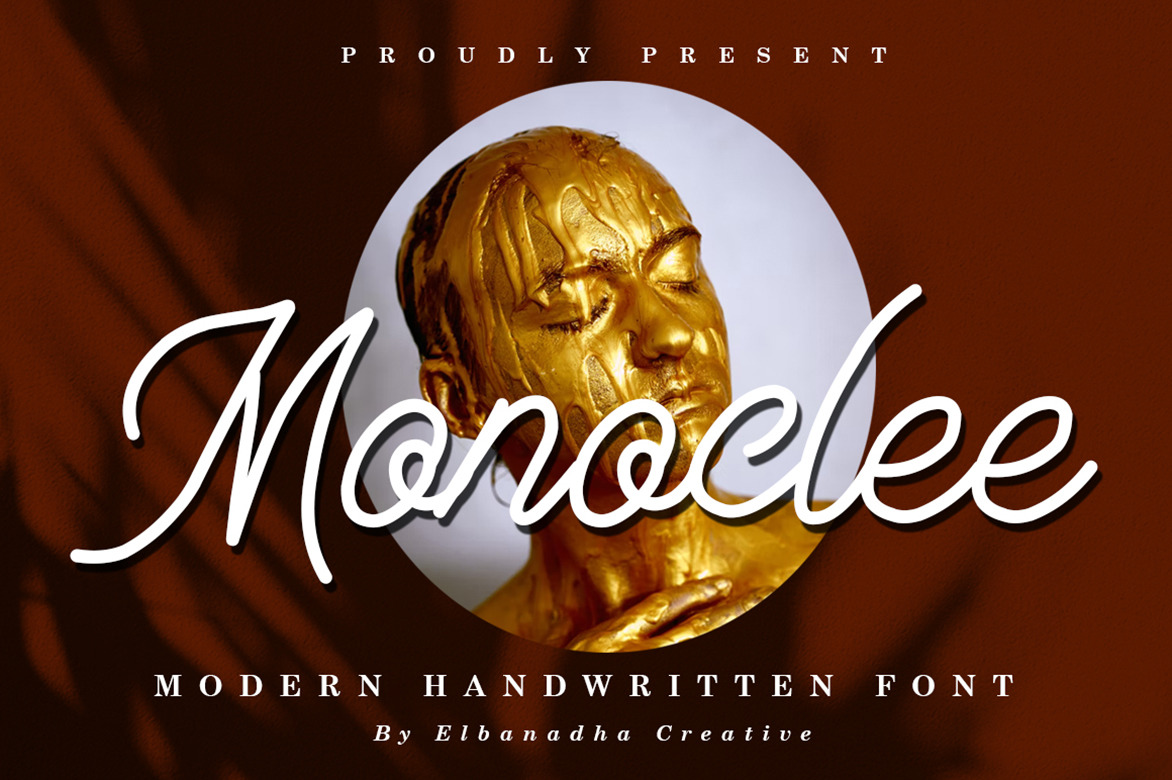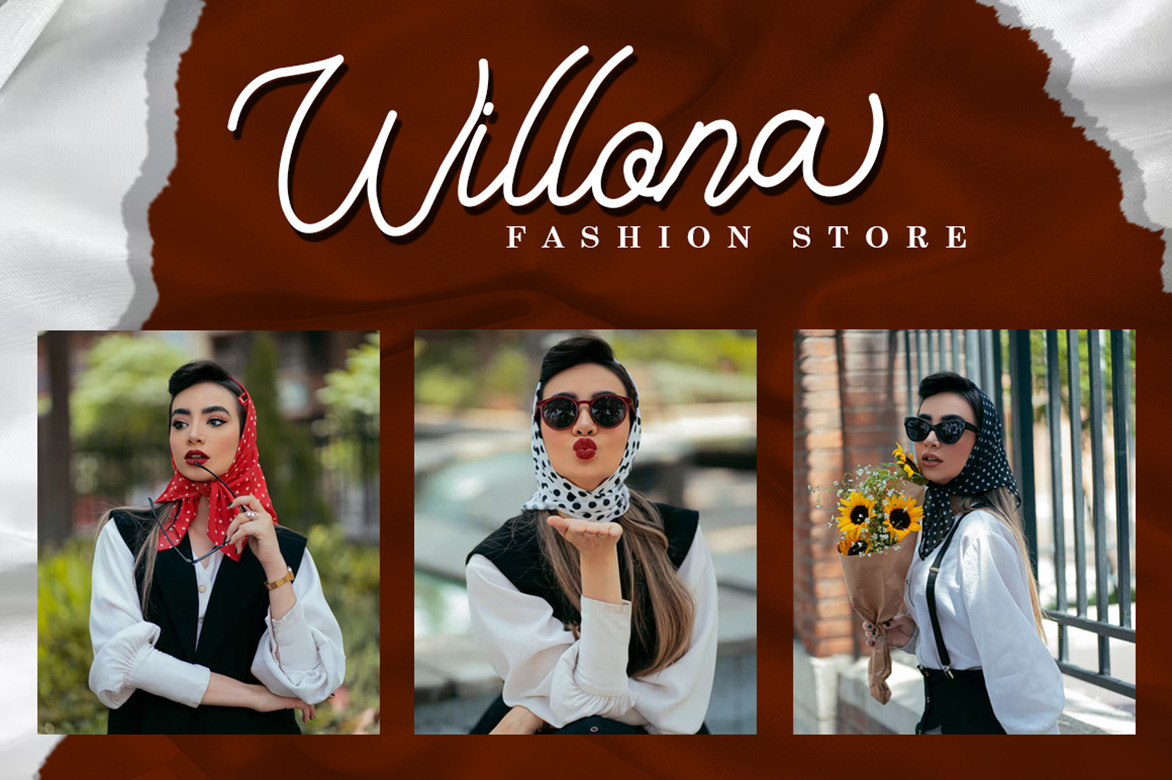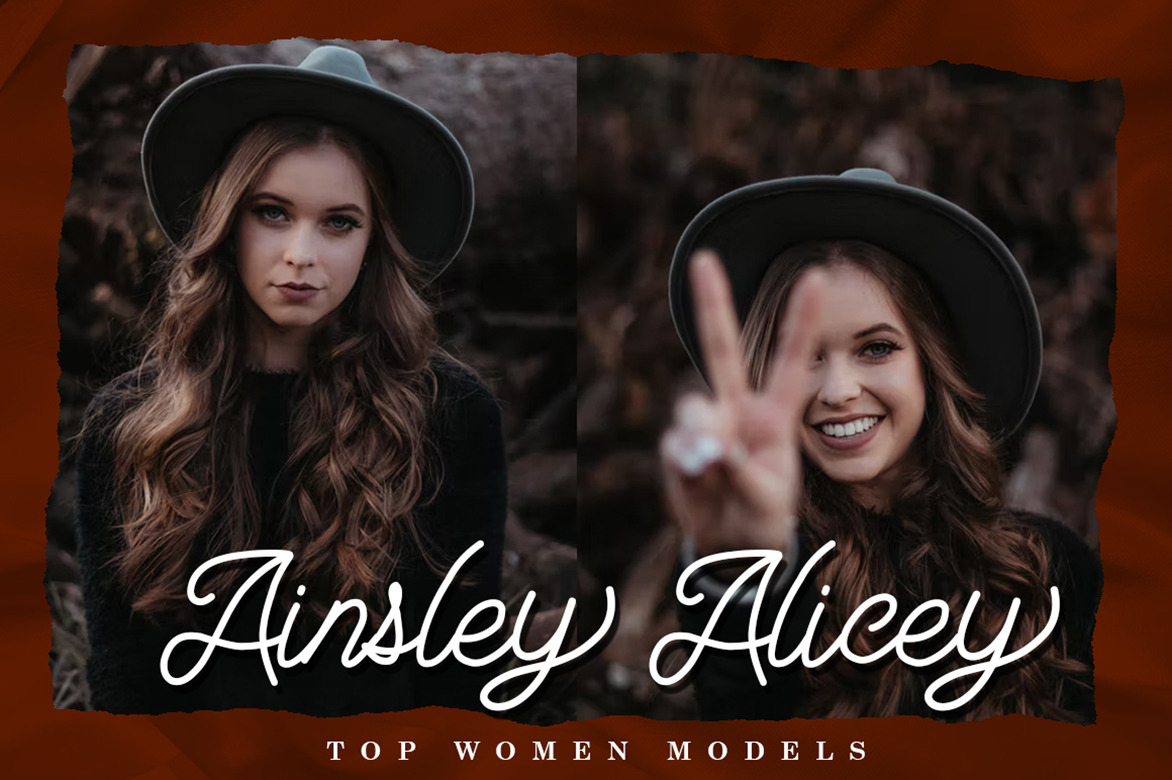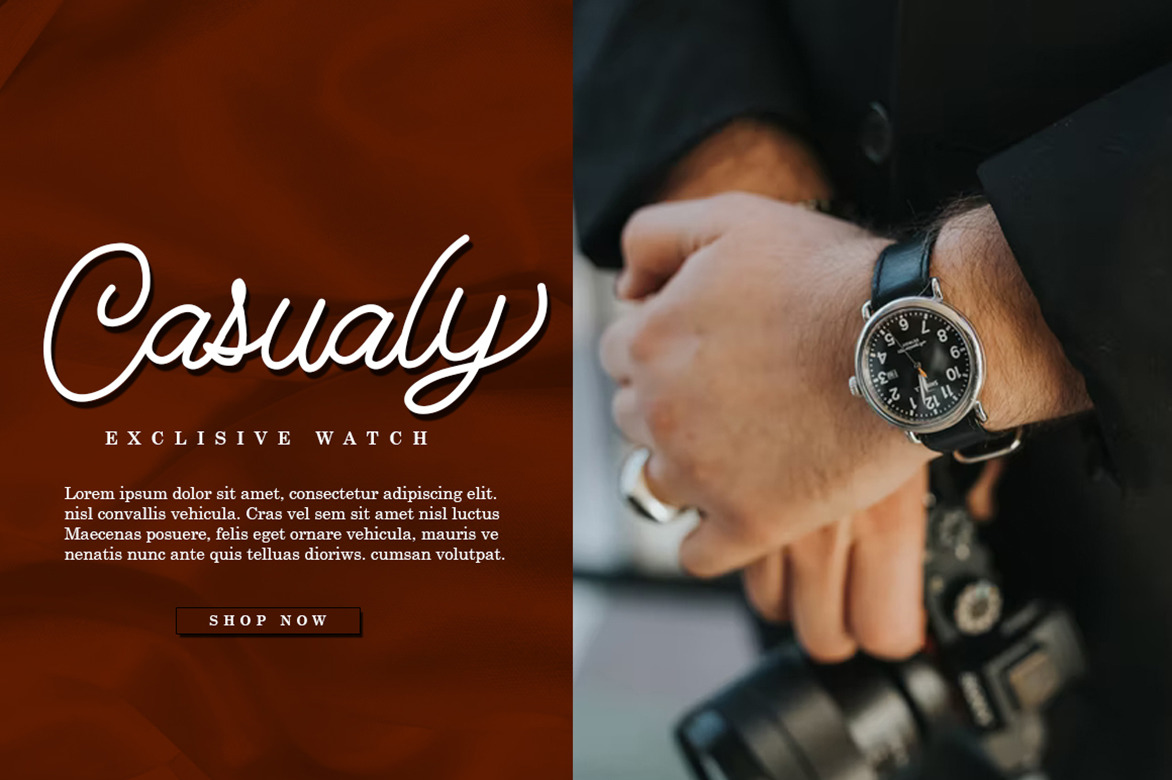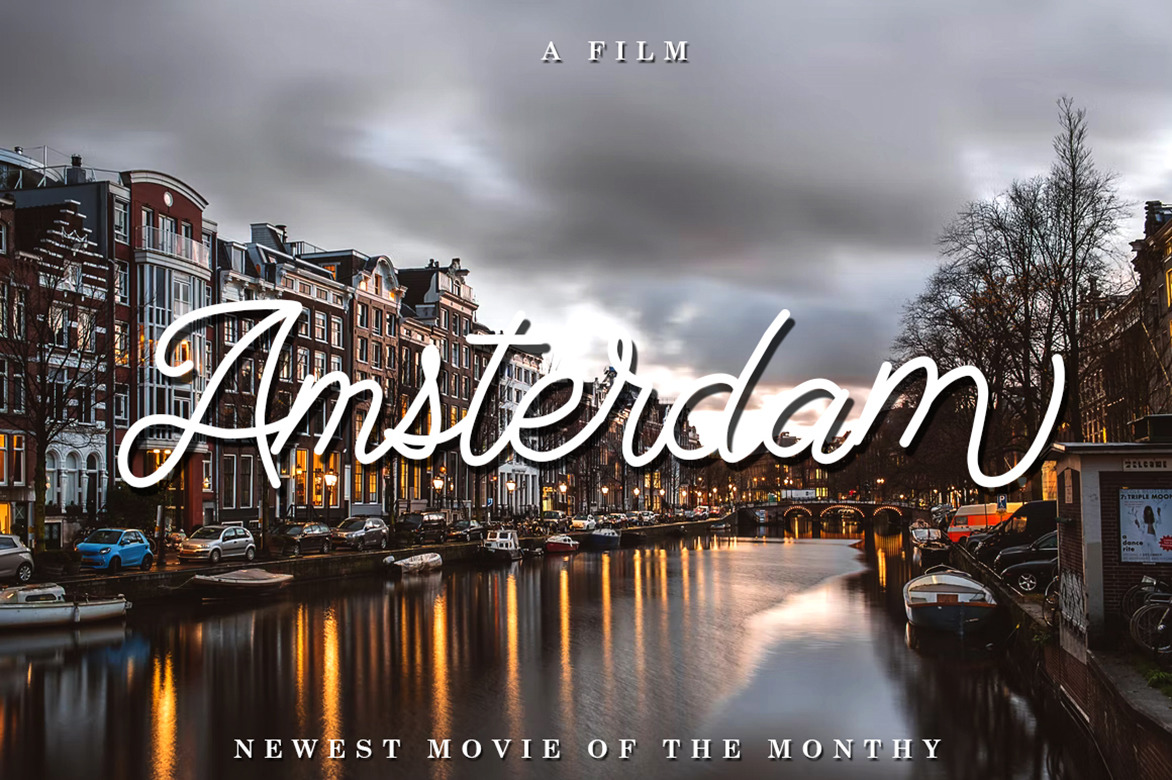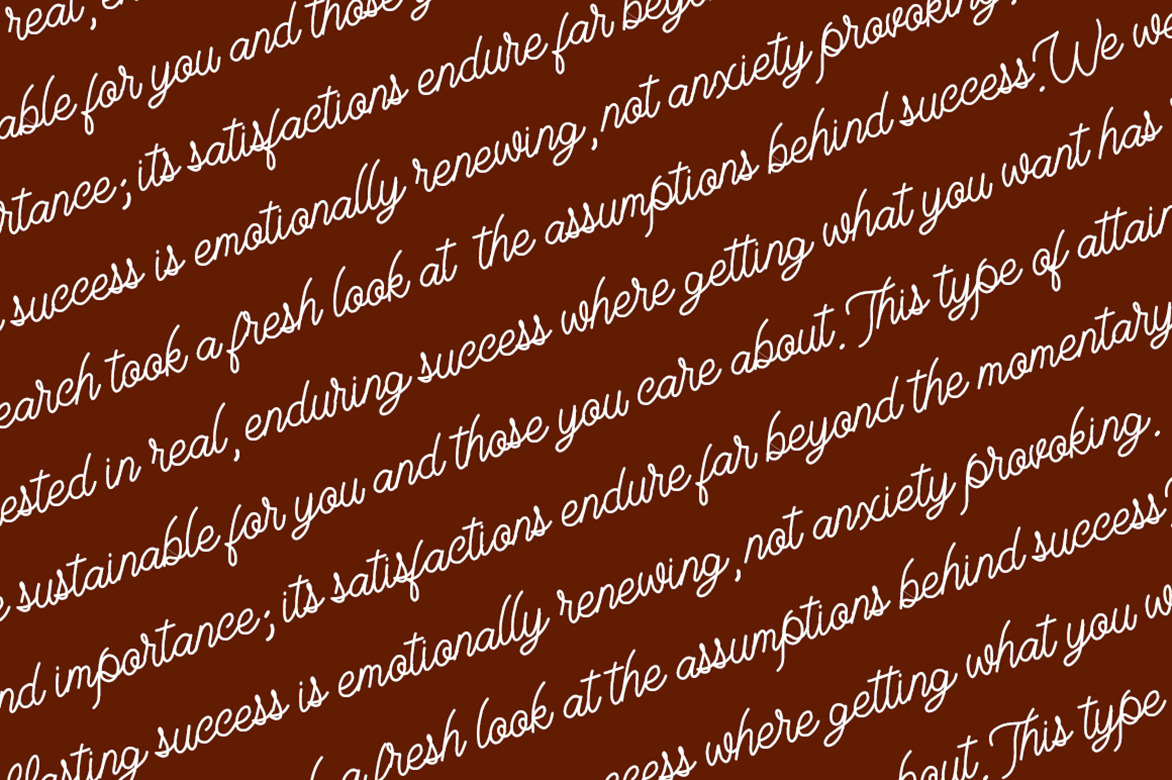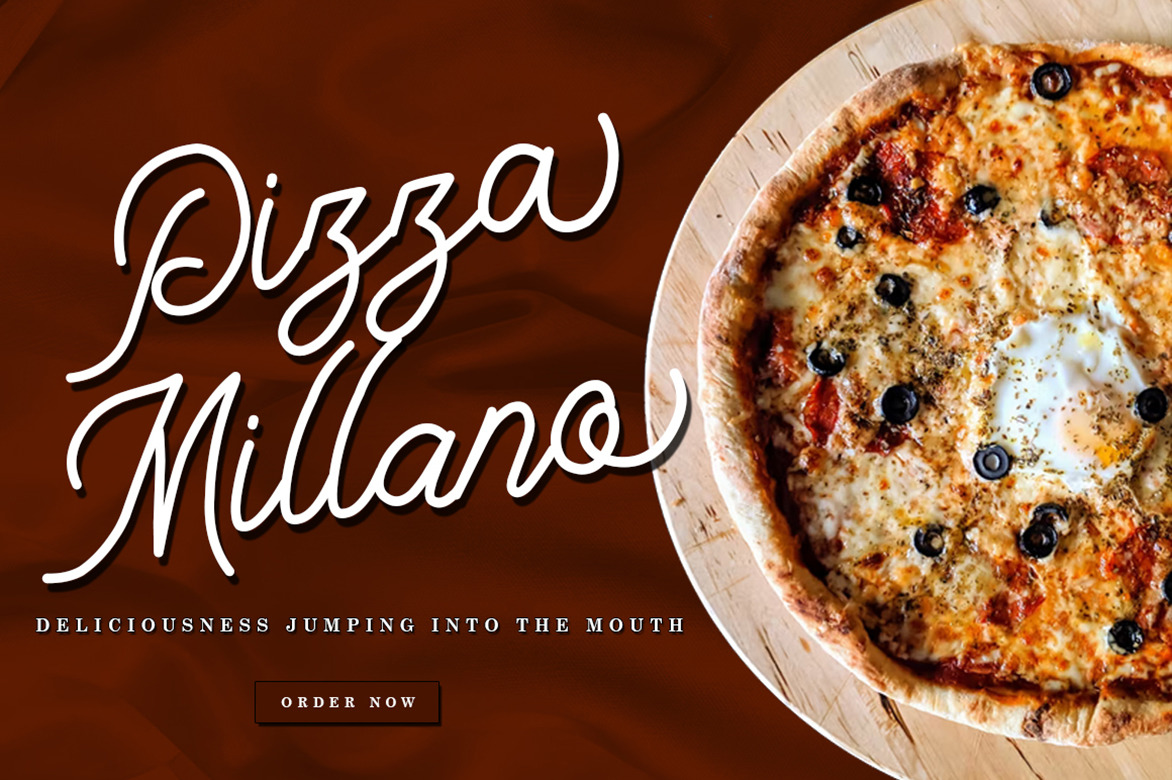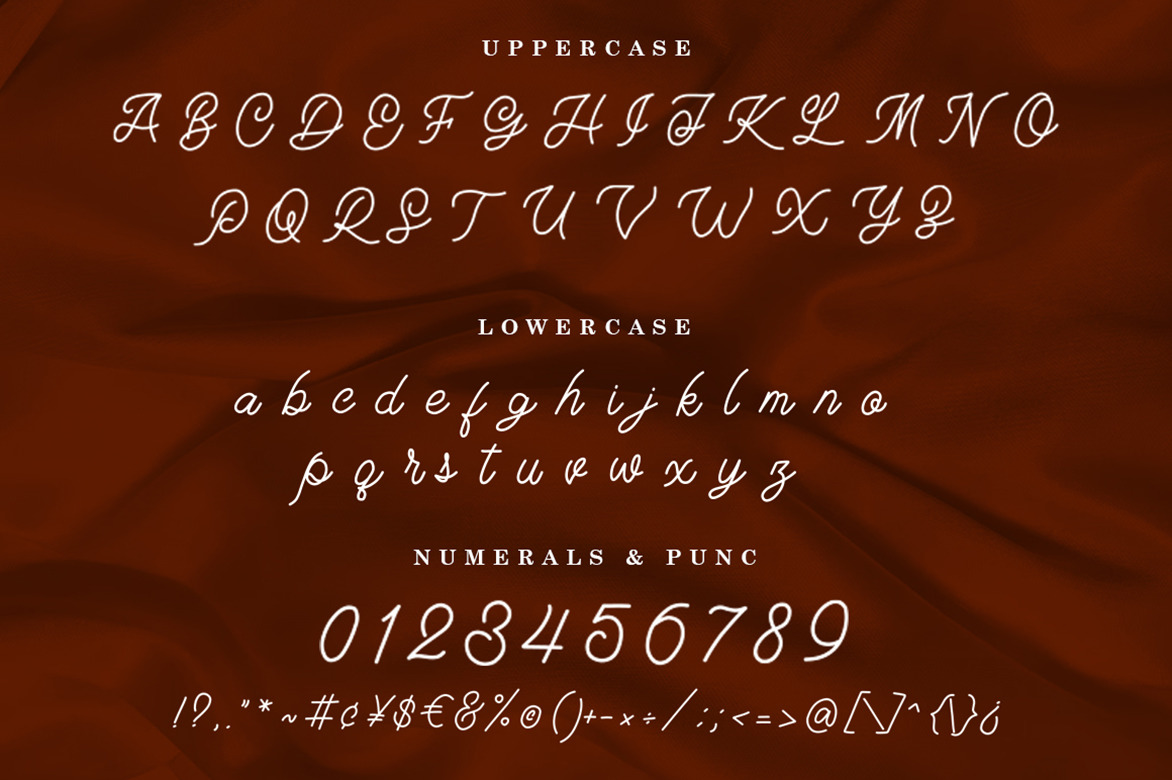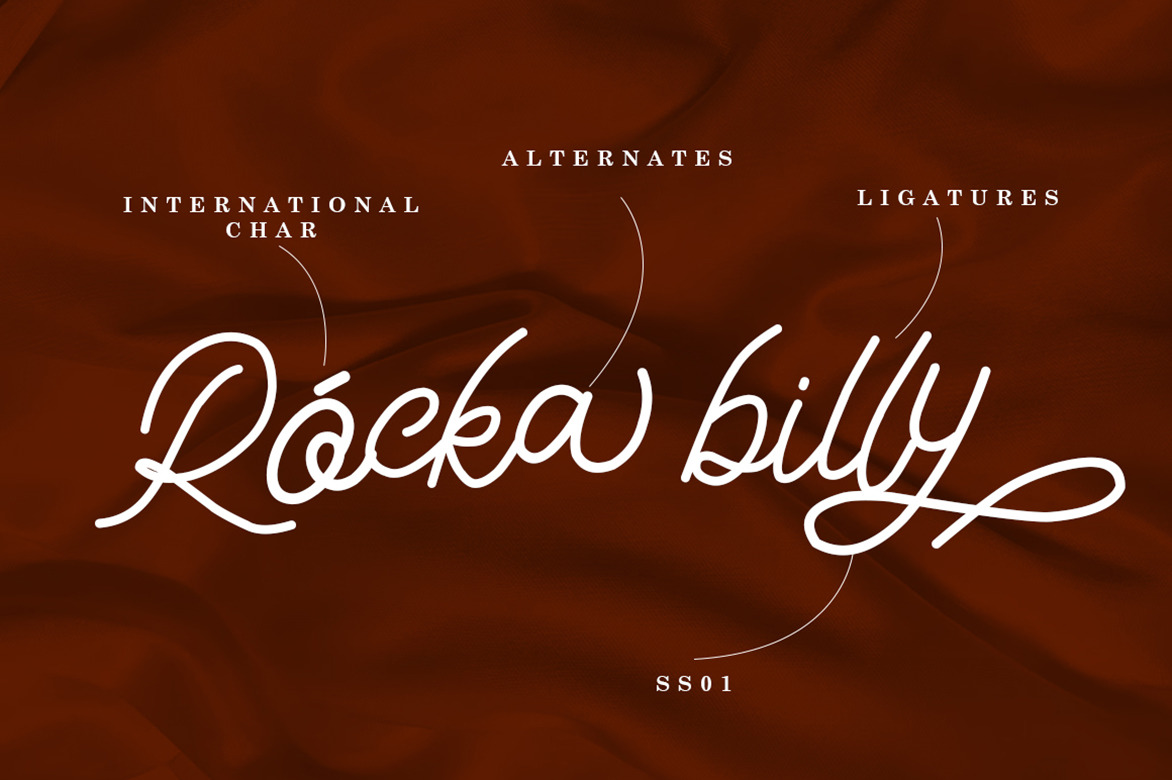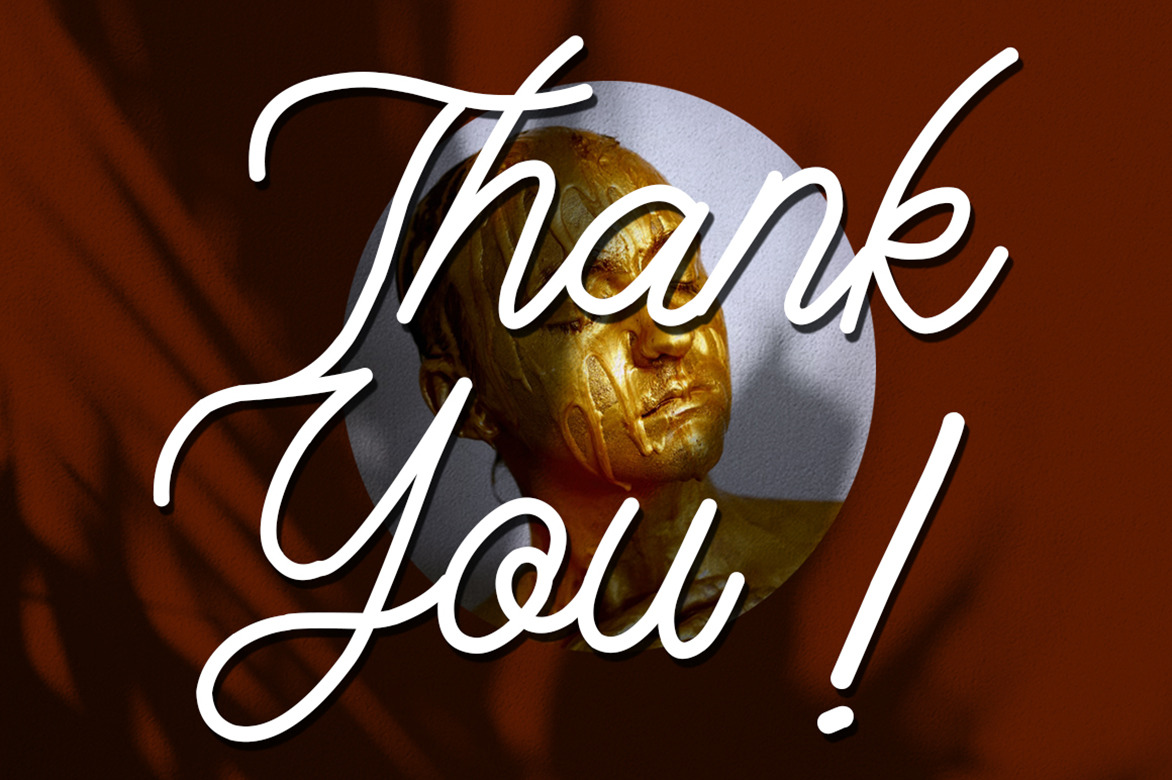
MONOCLEE | MODERN HANDWRITTEN FONT
MONOCLEE – MODERN HANDWRITTEN FONT, from Elbanadha Creative, suitable for any projects such as: logos, branding projects, homeware designs, product packaging, mugs, quotes, posters, shopping bags, t-shirts, book covers, name card, invitation cards, greeting cards, label, photography, watermark, special events, and all your other lovely projects that need a beautiful taste.
Standard glyphs
Alternate and Ligature